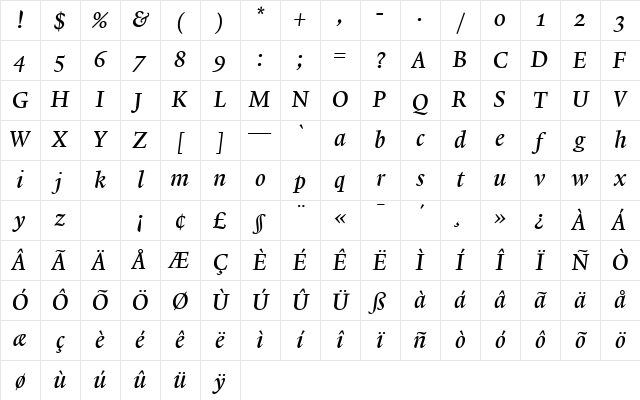
Lexicon No1 Italic B Med
Style: Italic B Med
Design Context for Lexicon No1
Lexicon No1 is a composed and adaptable typeface that performs quietly and consistently across a wide range of design contexts. The slanted form adds forward momentum and visual energy.
Pro Tip: Use Lexicon No1 for emphasis, pull quotes, and subheadings where its slanted energy can add rhythm to the layout.